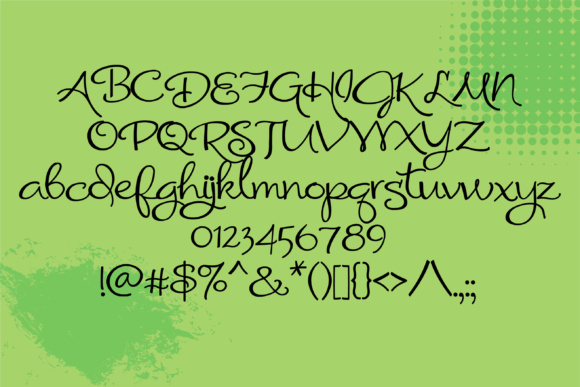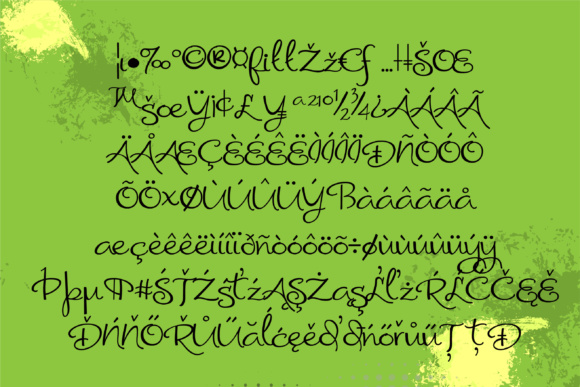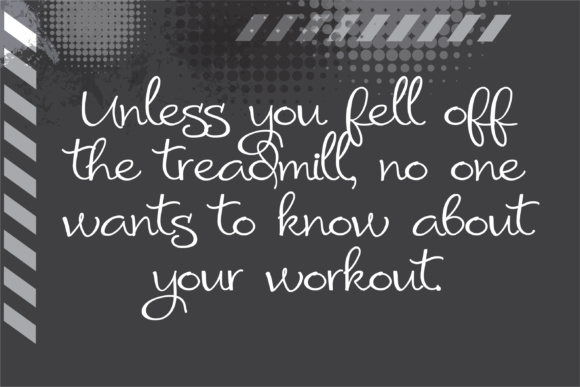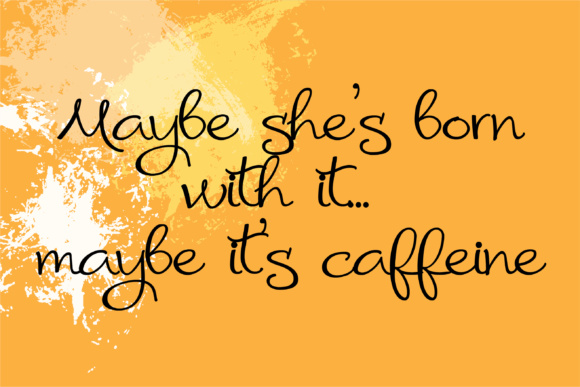
Introduction to Radioactive Font
Radioactive is a gorgeous hand-written script with big loopy descender’s.
Key Features of Radioactive Font
Why Choose Radioactive Font?